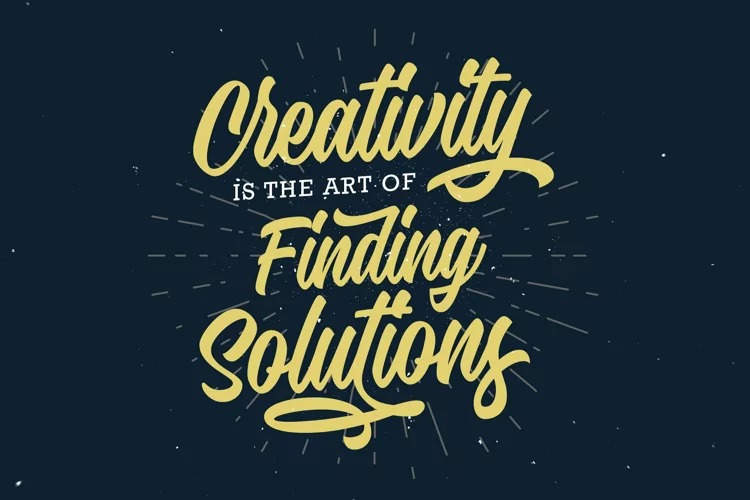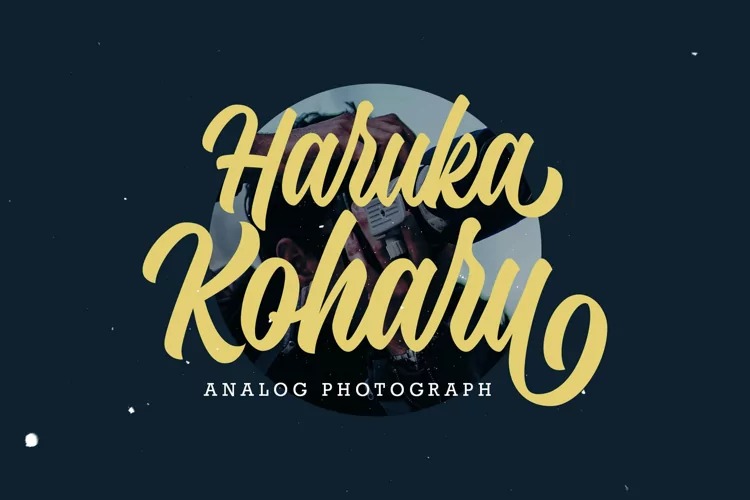
Hadnich Font
Hadnich Bold Script Font
This is modern retro brush font from designer Arterfak Project. Made carefully with digital sketch and vectorizing one by one to get best shapes. Complete your font library with this cool brush font. Works perfectly for logo, signage, apparel, labels, poster, and many more! Make sure you get more variants of typographic design with a ton of alternates characters that you can access easily!